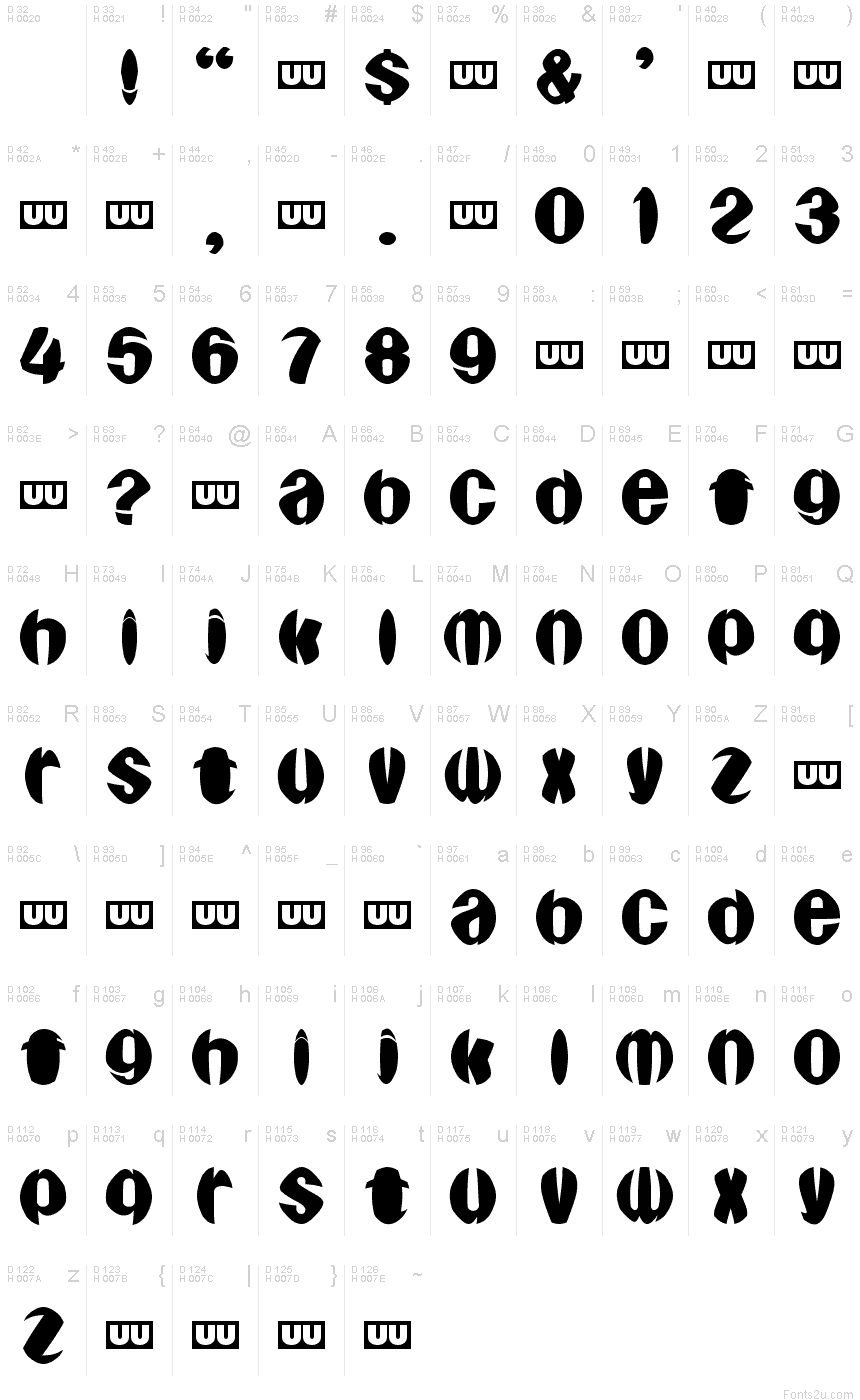
Aragones
Aragones font by Uddi Uddi is a free comic display typeface with bold, inky shapes that feel hand-cut rather than drawn. Its chunky, almost stencil-like forms and tight counter spaces create a playful, slightly mischievous mood—like lettering brushed quickly on a poster before the paint dries. Rounded curves collide with abrupt flat edges, giving Aragones a distinctive rhythm that stands out even in a crowded layout.
Using Aragones font, titles and wordmarks instantly gain a thick, graphic presence that reads at a glance. This free font works beautifully for comic covers, zines, stickers, kids’ event posters, YouTube thumbnails, and bold branding for playful products. It shines when set large, with short words that let each letterform breathe; try pairing it with a clean geometric sans for body text to keep the overall design balanced and readable.